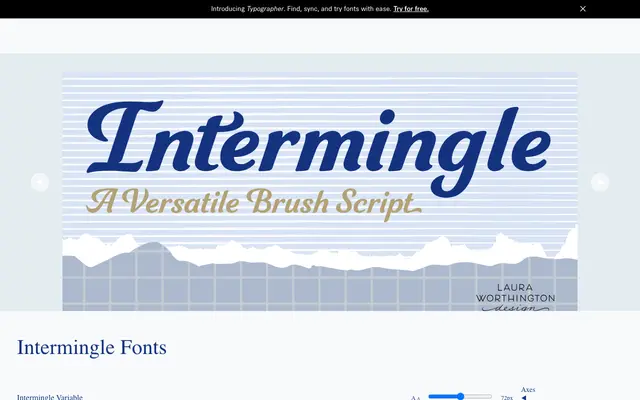
Intermingle
A deliberately simplified script with three weights and a variable font, designed by Laura Worthington for packaging, branding and editorial use.
Stripped back to its most essential forms, Intermingle balances practical legibility with selective swash detailing. Available in Regular, Bold and Black with a variable font included, it was inspired by Worthington's own Funkydori and Ganache, and is designed to work alongside either. Latin Extended language support covers over 25 languages across Central and Northern European scripts.
Intermingle is described as a script design pared down to essential forms with swash elements, placing it firmly in the script category as a casual or brush-influenced script.